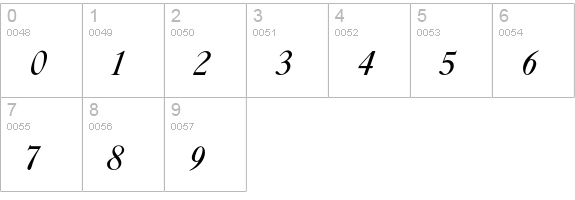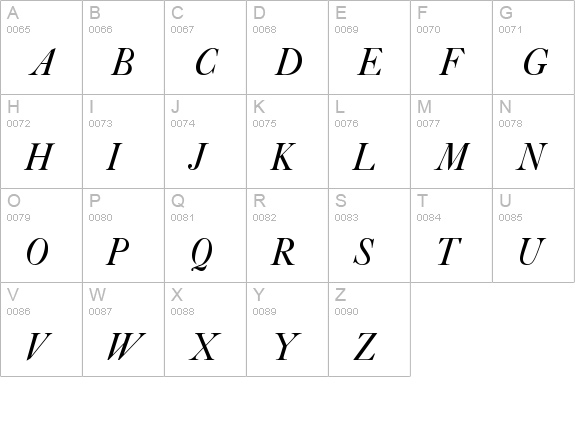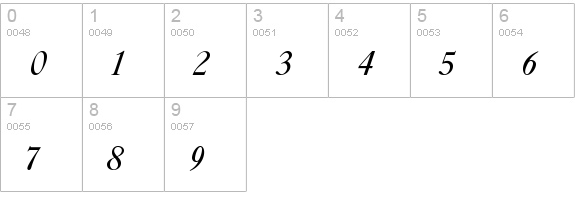
Caslon540EF-Italic is a distinctive, italic variant in the Caslon540EF typeface family \xE2\x80\x94 well suited to design and typography projects.
Caslon540EF-Italic is a classic and elegant font that exudes sophistication and charm. With its slanted and stylish cursive italic style, this font is perfect for adding a touch of class to any design project. The graceful letterforms and delicate strokes of Caslon540EF-Italic make it a popular choice for invitations, logos, and editorial designs. Best of all, Caslon540EF-Italic is completely free to download at FontsMarket.com. This means that you can easily access this beautiful font without any cost, making it a versatile and budget-friendly option for your creative projects. Whether you're a professional designer or a hobbyist looking to enhance your creations, Caslon540EF-Italic is a fantastic choice that combines beauty and accessibility. Download it today and elevate your designs with this timeless and elegant font.